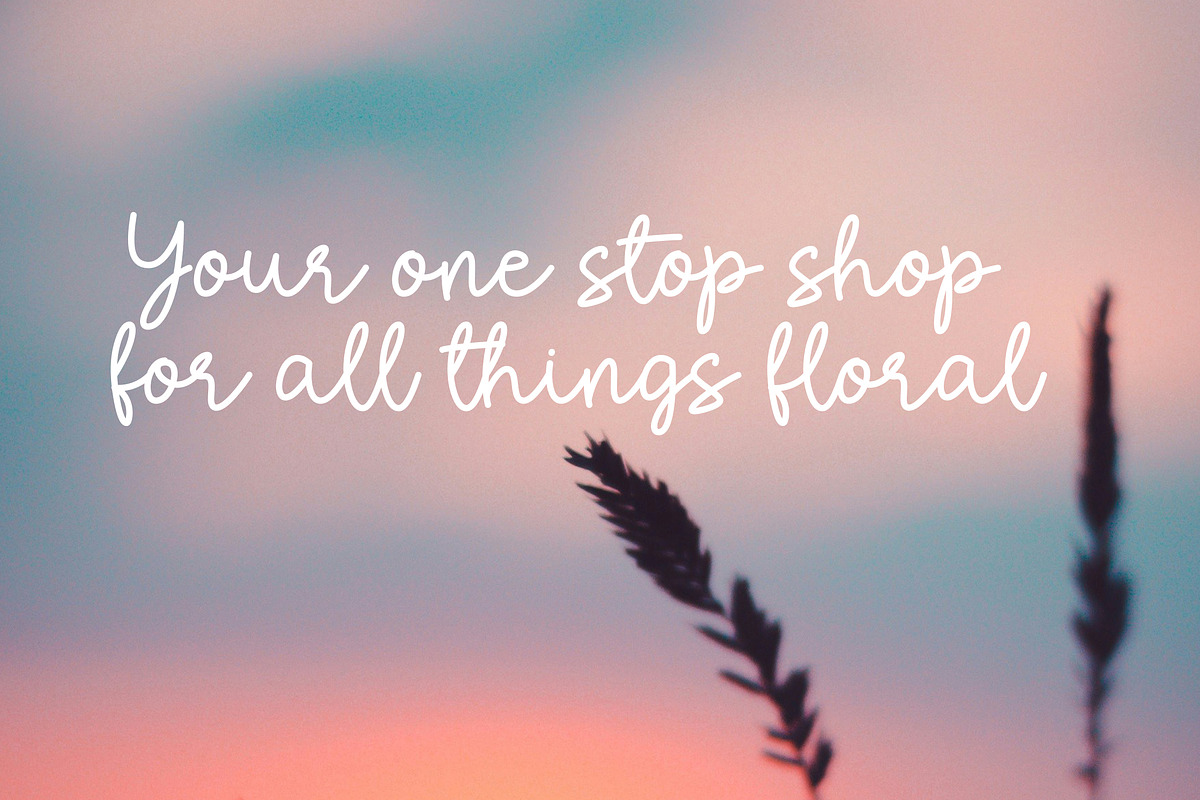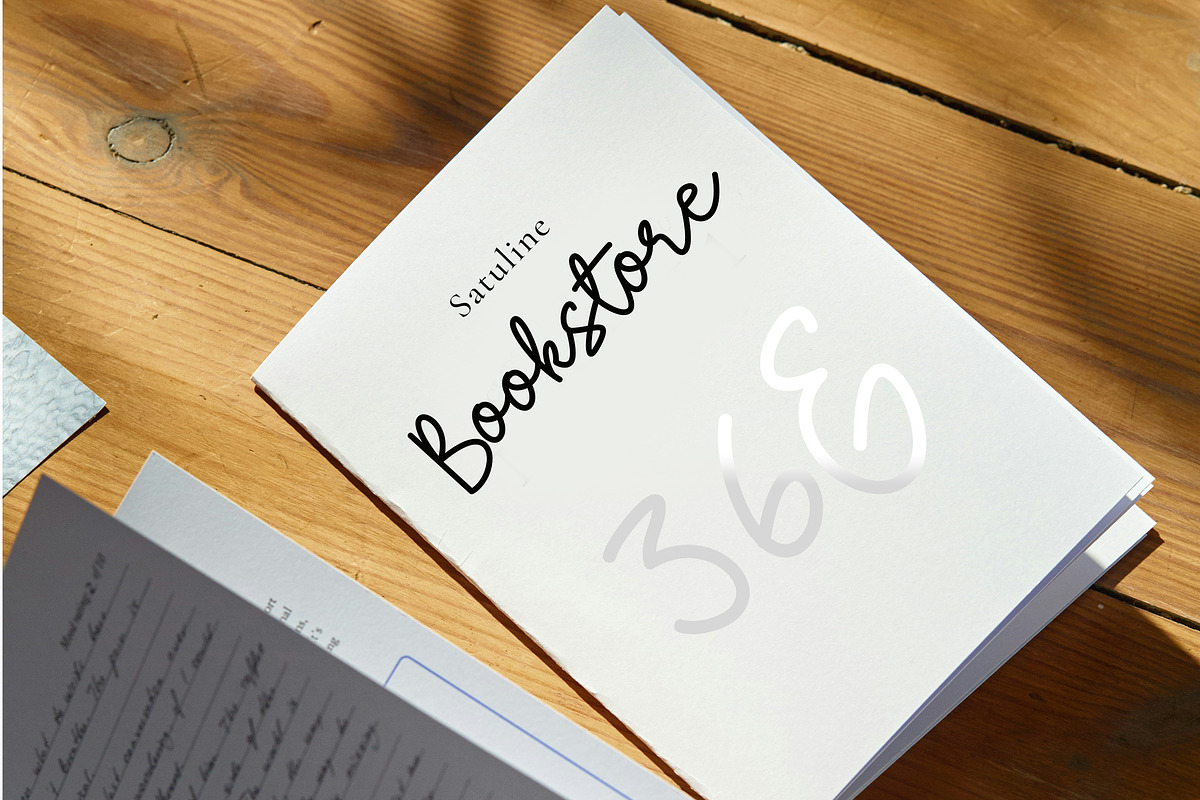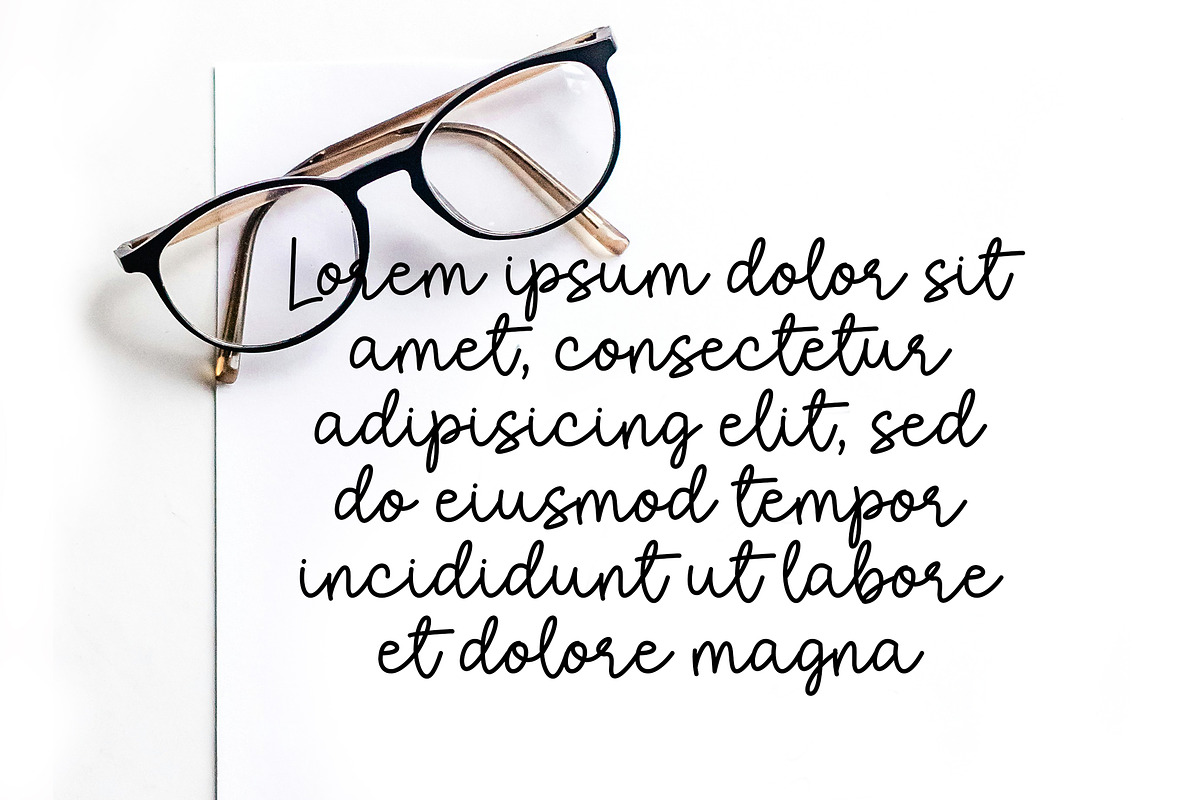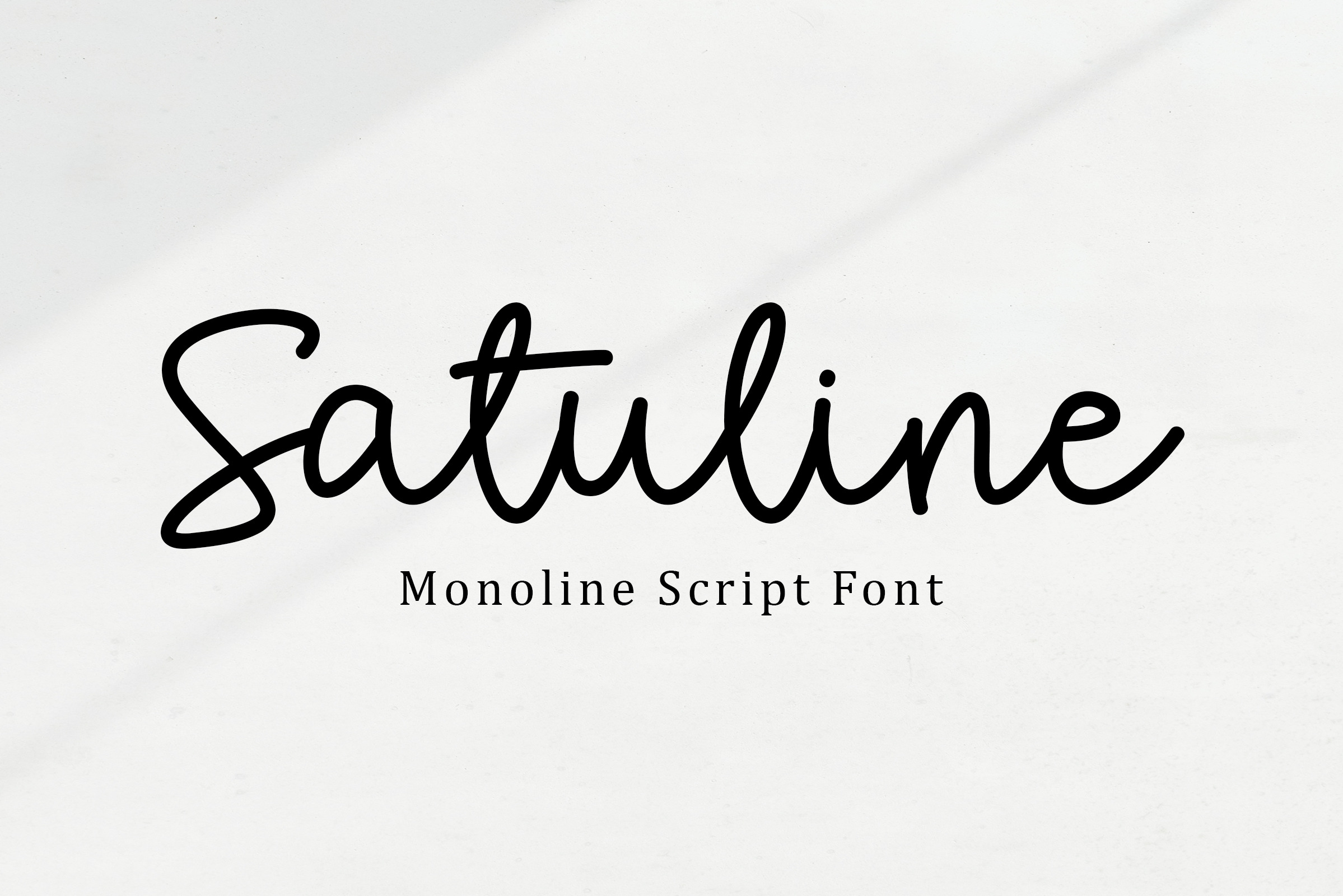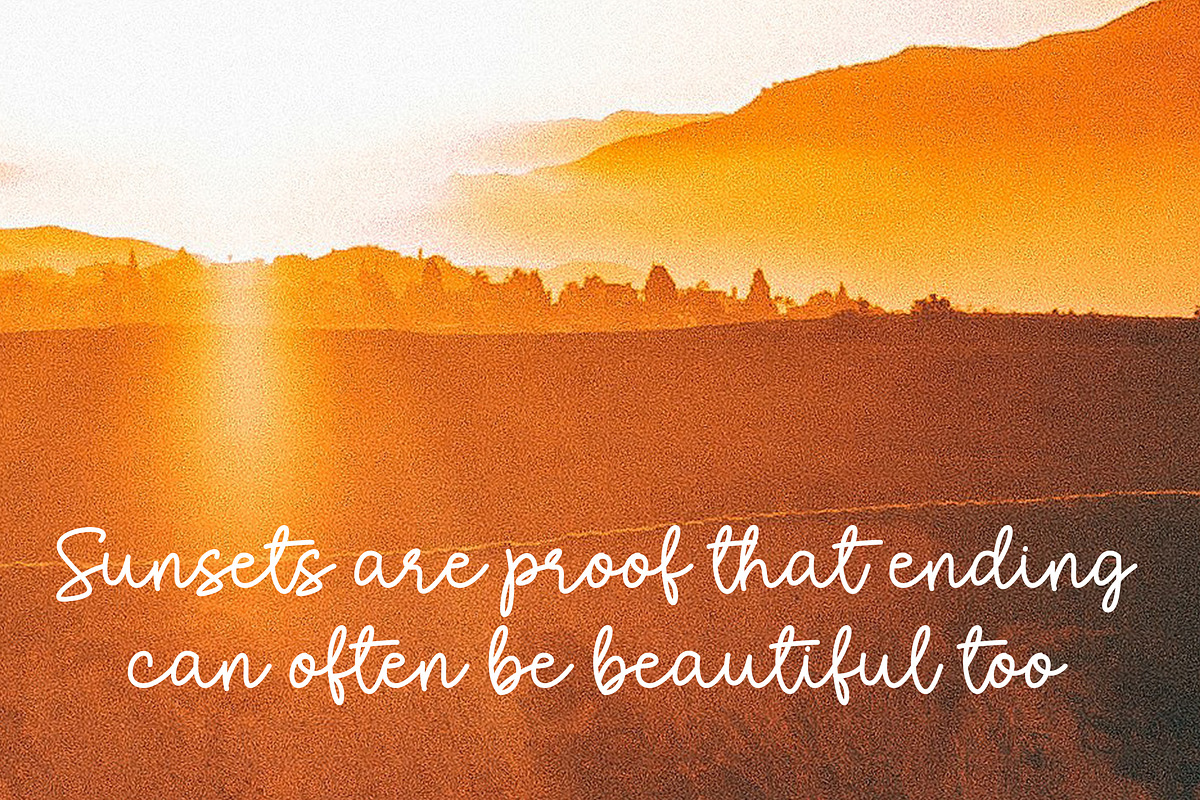
Satuline - Beautiful monoline font
Satuline is a clean, beautiful monoline font. Each letter flows onto the next seamlessly. This font will turn any creative idea into a true piece of art. (please type the preview to see if I have what you need!)